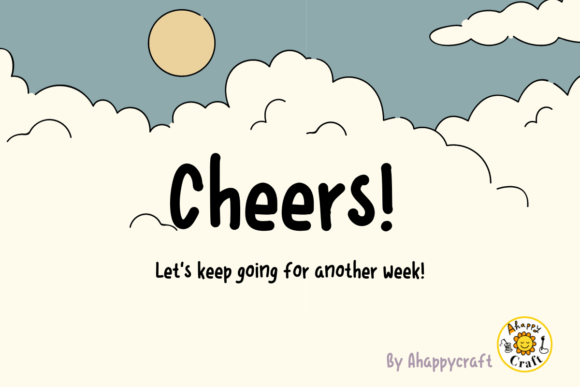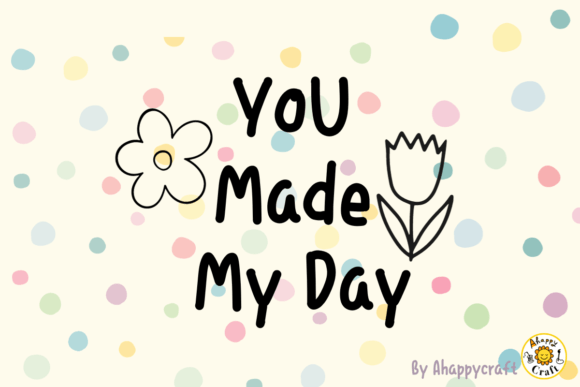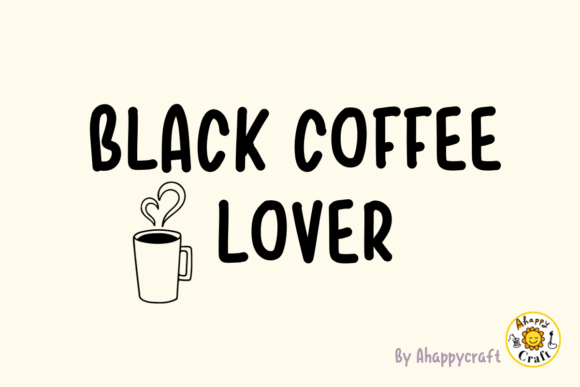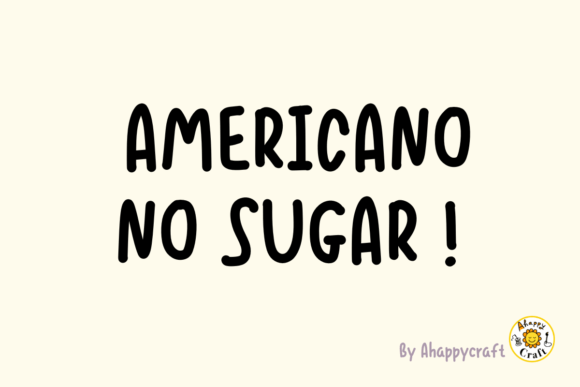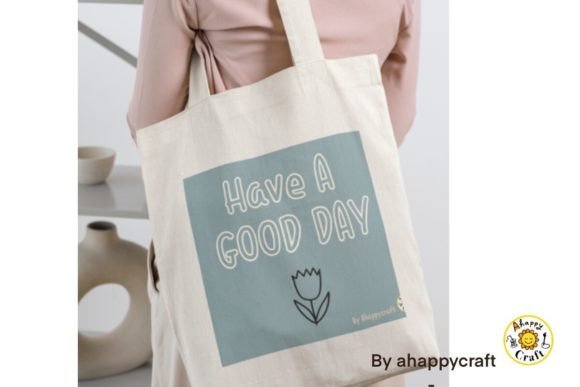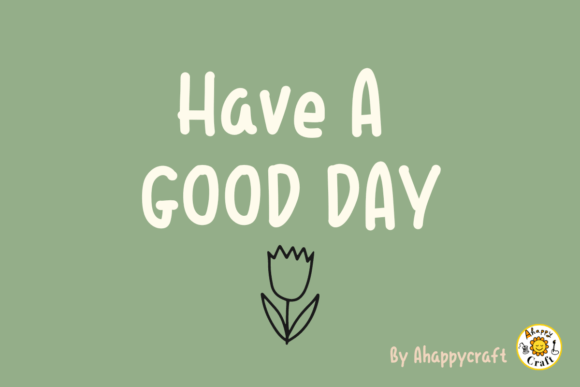
Introduction to Over Rainbow Font
One such font that has been making waves in the design community is the Over Rainbow Font. This sweet and friendly handwritten font is a treasure trove of creative possibilities. Its natural and unique style makes it incredibly fitting to a large pool of designs, from digital art to physical products. Whether you’re looking for a free download or a high-quality design resource, the Over Rainbow Font is sure to impress. With its transparent background and versatility, the only limit is your imagination!
Key Features of Over Rainbow Font
- High-quality design resource perfect for creative projects, offering a unique and vibrant aesthetic.
- Perfect for use in digital design, including web design, graphic design, and UI/UX design, due to its high resolution and crisp typography.
- Includes a range of styles and weights, giving you the flexibility to customize the font to suit your creative project’s needs.
Honest Review: Over Rainbow Font
I recently had the chance to work with the Over Rainbow Font, and I must say it’s a real treat. As a designer, I’m always on the lookout for high-quality design resources to elevate my creative projects. This font definitely delivers.
- What works well: ✨ The Over Rainbow Font has a unique, hand-drawn feel that’s perfect for adding a touch of whimsy to any design. The font is also super versatile and can be used for a wide range of projects, from children’s books to social media graphics.
While the Over Rainbow Font is a great addition to any design library, there are a few limitations to keep in mind:
- ⚠️ The font may not be suitable for formal or professional projects, as its playful feel may not be taken seriously. However, for creative projects or personal designs, it’s a great choice.
- ⚠️ The font may not be as legible at smaller font sizes, so be sure to test it out before using it for text-heavy designs.
Overall, I’m really impressed with the Over Rainbow Font. It’s a fun, high-quality resource that’s perfect for adding a touch of personality to your designs. Just be sure to use it wisely and consider its limitations when working on your next creative project.
For high-quality results, use the Over Rainbow Font on a transparent background to create a striking design. Experiment with different font sizes and styles to add visual interest to your project.
The Over Rainbow Font is ideal for creative projects such as social media graphics, posters, and infographics. Its high-quality design and transparent background make it a versatile design resource for a variety of applications.